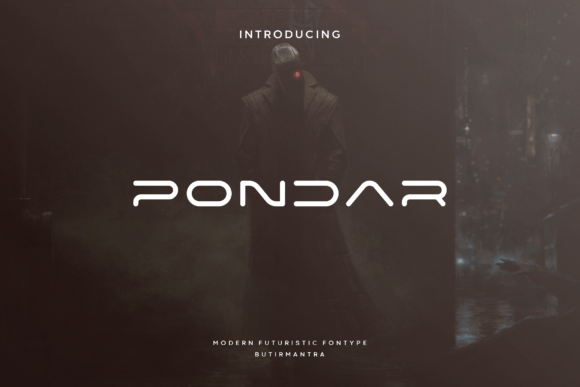
Introducing Pondar Font, the ultimate display font for crafting a modern CV that captivates the attention of recruiters. This meticulously designed font is a perfect balance of simplicity and sophistication, exuding a timeless elegance that sets you apart from the competition. With its smooth angular shape, Pondar creates an aura of professionalism and confidence, leaving a lasting impression on potential employers.
Step into the world of modern typography with Pondar Font, where sharp lines and curves dance in perfect harmony. Its clean and legible design ensures your CV stands out amidst a sea of applications, making it easier for recruiters to navigate your skills and qualifications. Whether you're a fresh graduate or an experienced professional seeking a new challenge, Pondar Font is the key to unlocking your career aspirations.
Pondar Font's versatility extends beyond CV creation. Unleash your creativity and use it for branding and logo designs that reflect your company's unique identity. Its modern and elegant look adds a touch of sophistication to your marketing materials, leaving a lasting impression on customers and clients. With Pondar Font as your creative companion, you'll create designs that resonate with your audience and leave them wanting more.